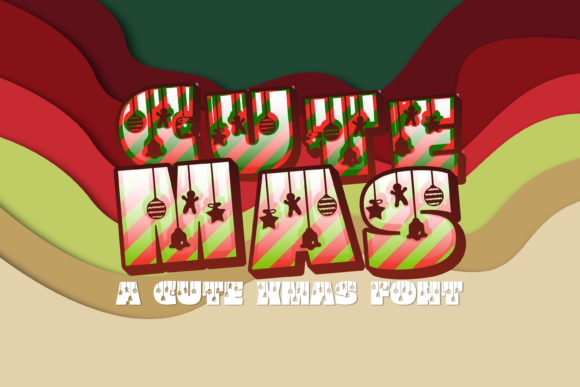
In a world teeming with digital monotony, Cutemas Font emerges as a beacon of creativity, a font family that embodies whimsy and charm. Step into a universe where imagination reigns supreme, where designs take on a life of their own, bursting with personality and captivating all who lay eyes upon them.
Crafted with meticulous attention to detail by the renowned font artisans at WADLEN, Cutemas Font is a symphony of carefully drawn curves and meticulously placed accents. Its decorative style dances across the page, evoking a sense of celebration and joy. Whether you're a seasoned Cricut crafter or a budding designer seeking a touch of magic, Cutemas Font is your gateway to a world of endless creative possibilities.
With Cutemas Font, ordinary words transform into vibrant works of art, each letter a stroke of genius that captivates the senses. Its playful nature adds a spark of delight to invitations, greeting cards, and social media posts, while its versatility extends to branding, packaging, and website design. Imagine your brand adorned with the captivating allure of Cutemas Font, standing out from the crowd and leaving an indelible mark on the minds of your audience.
Picture your Cricut creations adorned with the enchanting strokes of Cutemas Font. Banners, cards, and decorations leap off the page, bursting with vibrant energy that speaks to the heart. The font's inherent charm breathes life into every design, transforming ordinary projects into extraordinary expressions of creativity.
Indulge in the magic of Cutemas Font and watch as your designs blossom into masterpieces, captivating and enchanting all who encounter them. Let your imagination soar, embrace the beauty of uniqueness, and add a touch of Cutemas charm to your digital creations.